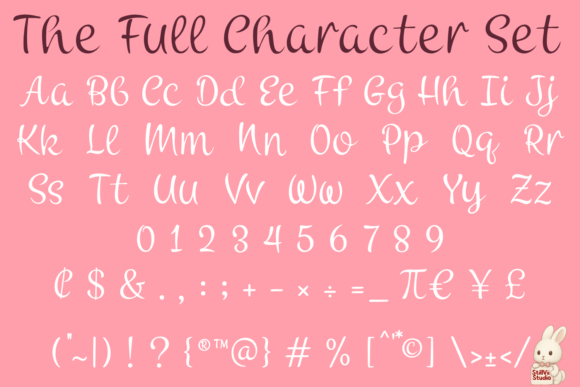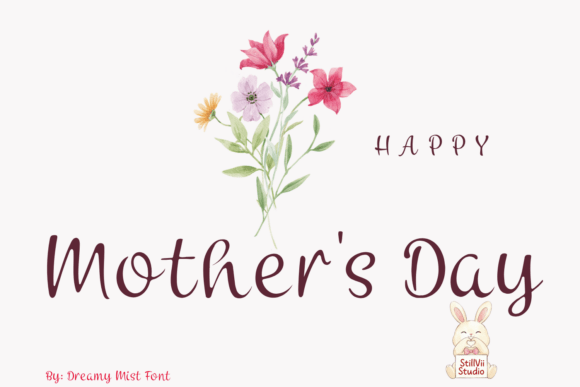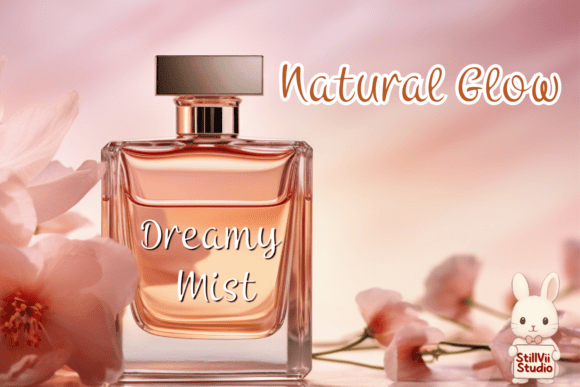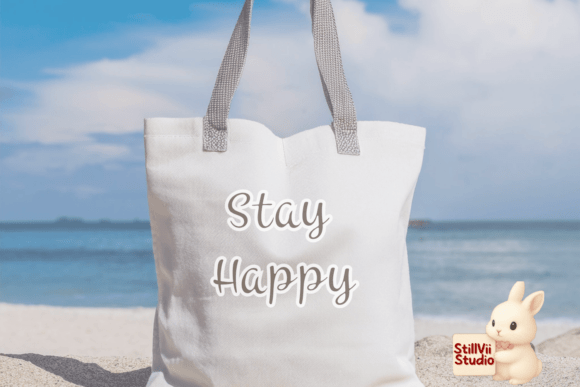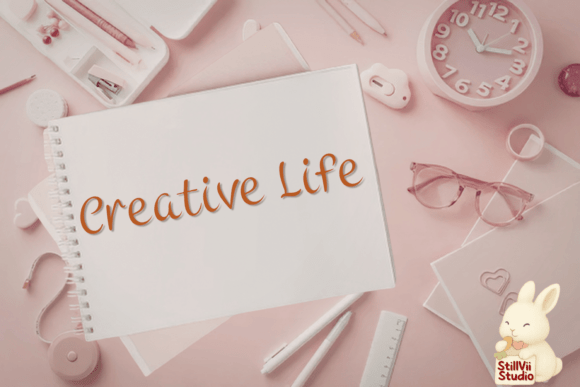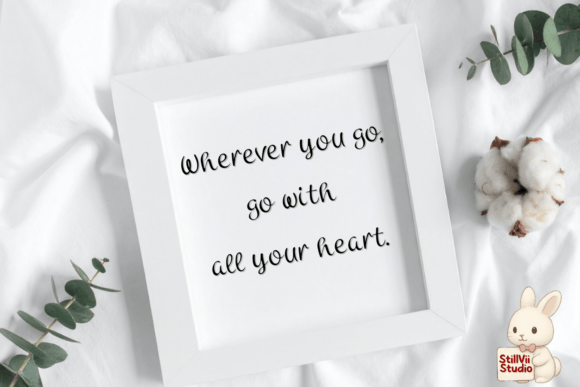
Introduction to Dreamy Mist Font
Let your creativity bloom with the Dreamy Mist Font.
A sweet and whimsical handwritten font crafted with love This modern bouncy script is perfect for turning your everyday projects into romantic, dreamy masterpieces.
Key Features of Dreamy Mist Font
Why Choose Dreamy Mist Font?
Dreamy Mist Font offers exceptional quality and versatility, making it a valuable addition to your design toolkit. Whether you’re creating for personal projects or commercial use, Dreamy Mist Font delivers professional results.